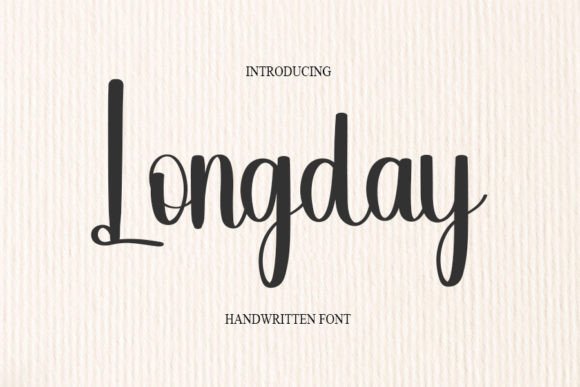
Welcome to the world of sophistication and elegance, where words dance with grace upon the digital canvas. Introducing Longday Font, the epitome of beauty and professionalism, crafted by the visionary minds at NYA Letter. Longday is a script font that's not just a collection of letters; it's an artistic masterpiece, transforming your words into works of art.
Imagine your business letters, radiating with an air of confidence and charm. Each stroke of Longday Font carries a weight of authority, commanding attention and respect. Its balanced and varied design ensures that your messages stand out, leaving a lasting impression on clients and colleagues alike.
Longday Font is a symphony of curves and flourishes, effortlessly enhancing the beauty of your projects. Its modern vibe and spotless form evoke a sense of timelessness, ensuring that your creations remain relevant and captivating for years to come.